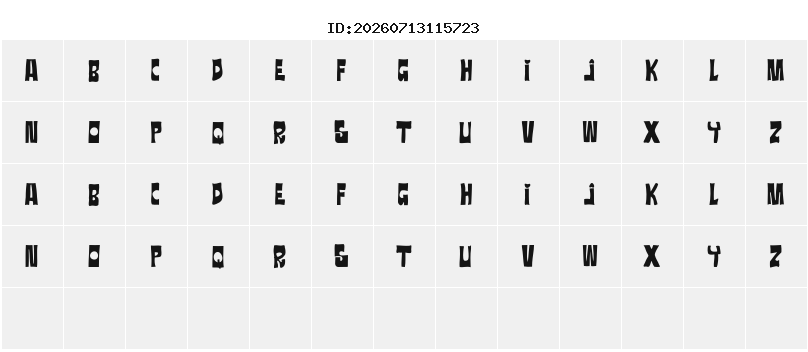
RATANEGRA Preview
• Font Name: RATANEGRA
• Font ID: RATANEGRA
• Full Font Name: RATANEGRA
• PostScript Name: RATANEGRA
• Character Count: 63
• Manufacturer: C?rdobaNoConforme
About RATANEGRA.ttf
RATANEGRA.ttf is a modern, elegant sans-serif font designed for ultimate readability and visual harmony. Perfect for branding, headlines, web design, and print materials.